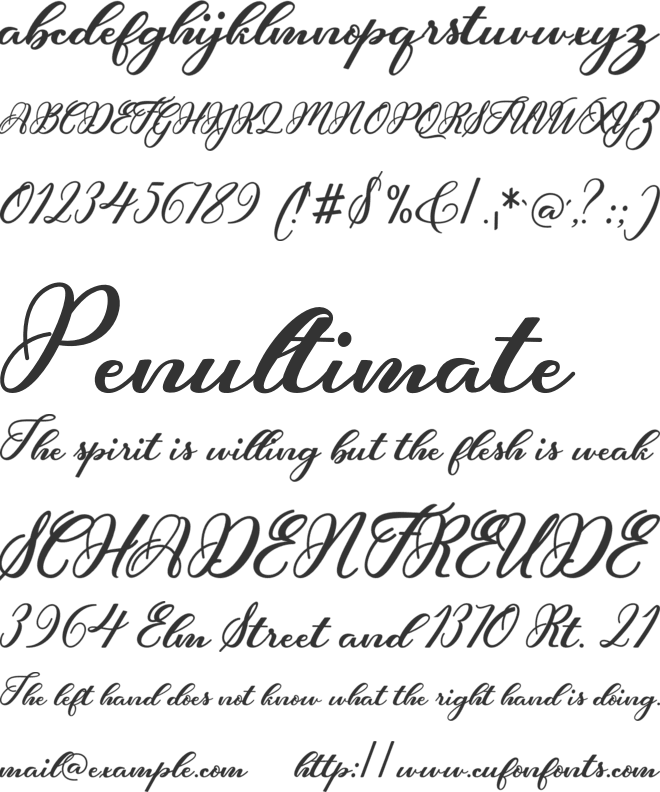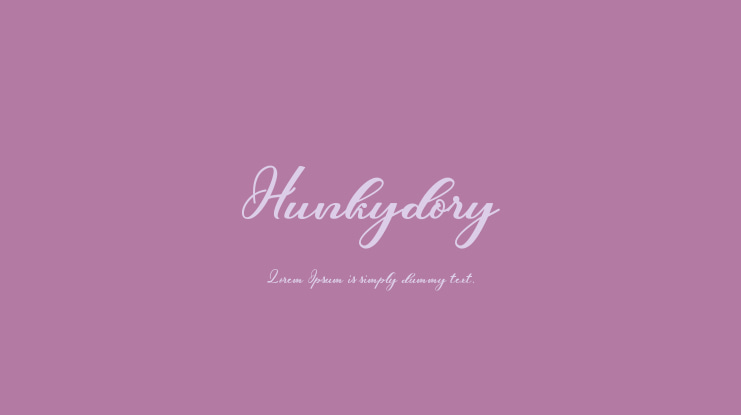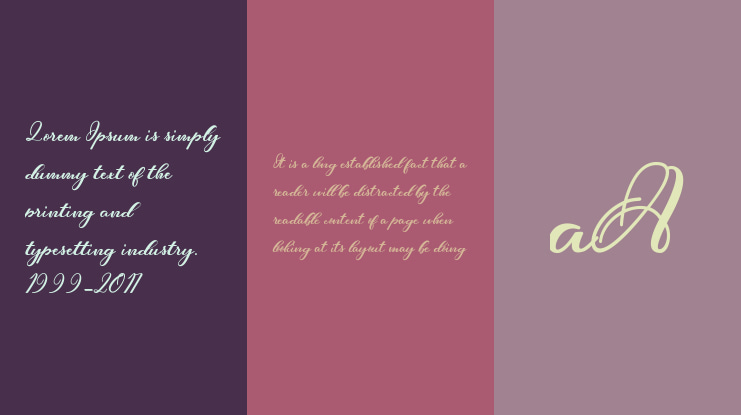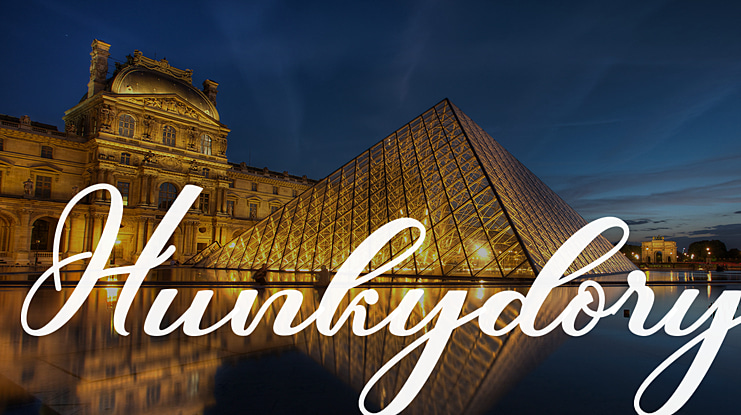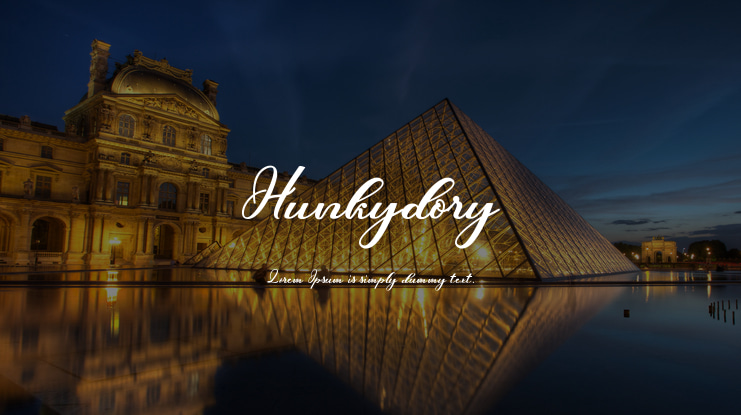
Hunkydory Font
Hunkydory is an extraordinarily authentic script font with distinctive characters! Suitable for creating logos (typography), titles, posters, quotes, and more.
Hunkydory font preview